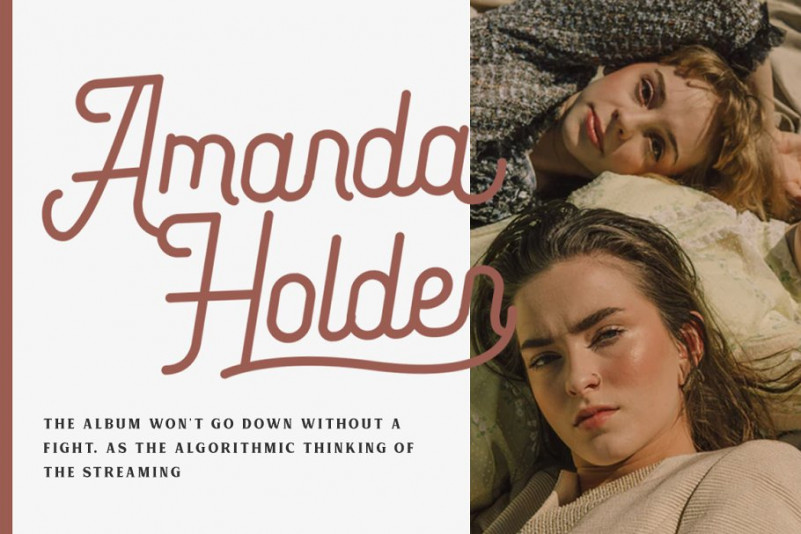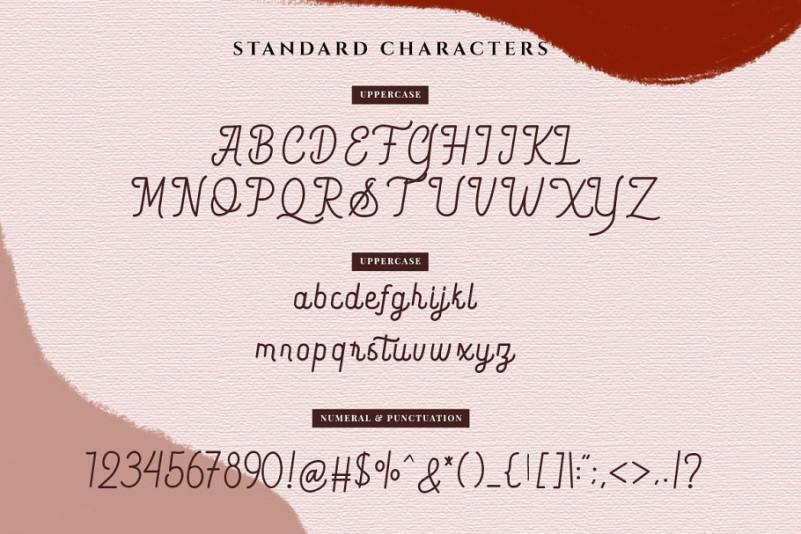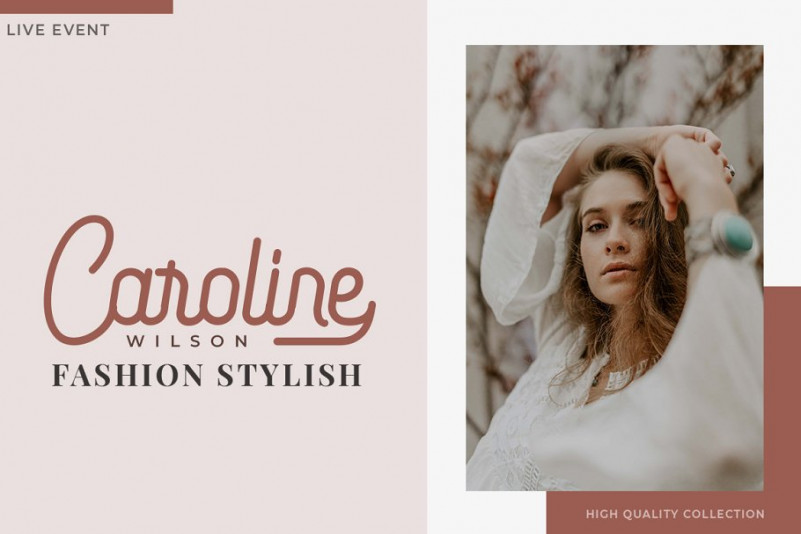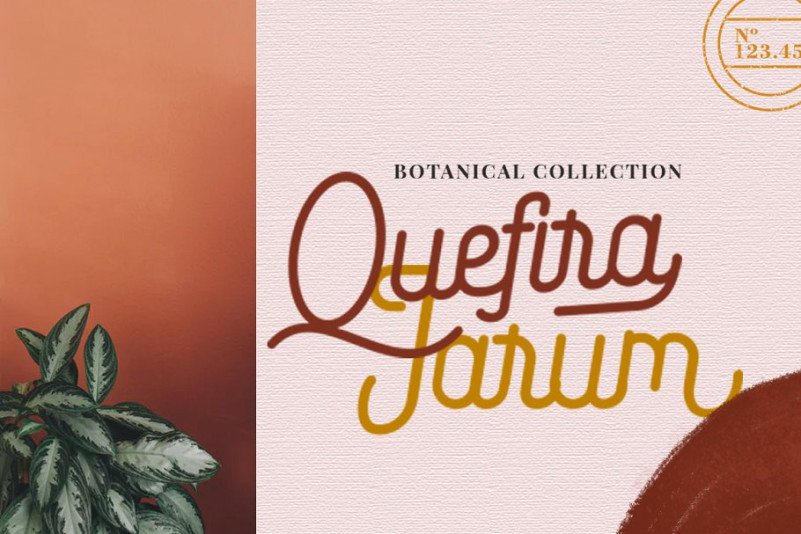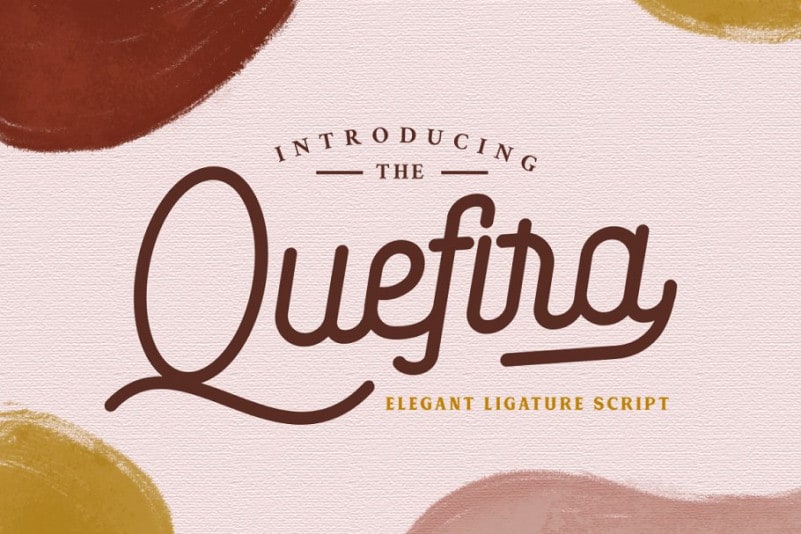
Quefira Script Font
Quefira Script Demo Font
A new vintage font typeface. Perfect fair of sans and script font for retro vintage styles. Made carefully to create perfect suitable for each of your projects. Introducing Quefira Font. It’s clean and minimalistic script with beautiful ligature and alternate font. It also works wonderfully on its own for logos, quotes, and more! All characters have an imperfect shape that gives a natural look in design. It easily cooperating together and perfect for creating the traditional style logos, labels, package design, lettering for t-shirts and much others.